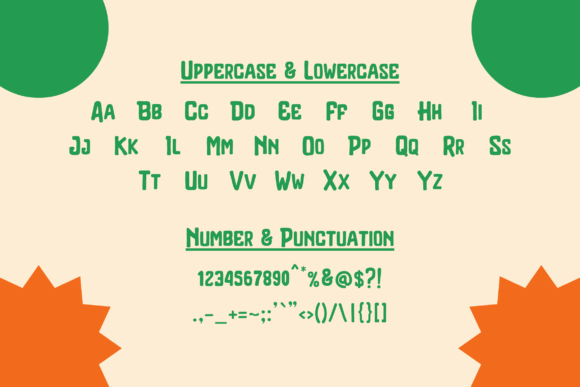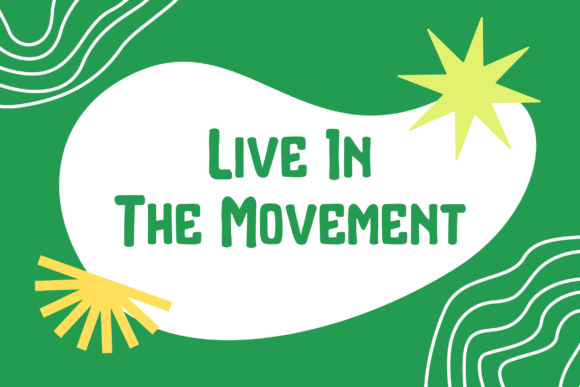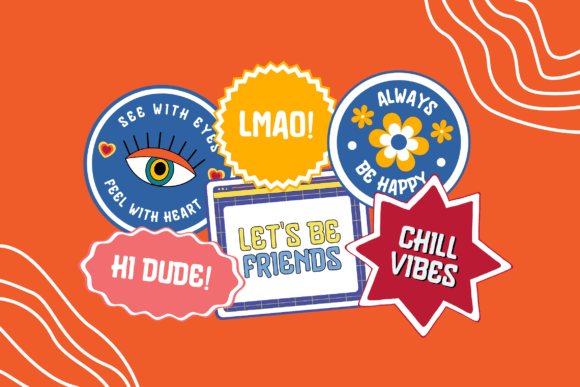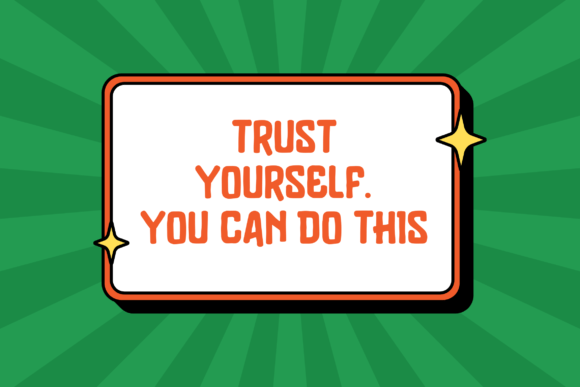
Bharaya Font: Add a Touch of Whimsy to Your Creative Projects
Bharaya is a fun and quirky display font that’s sure to add a dash of personality to your creative projects. With its unique and playful design, this font is perfect for designers and crafters looking to make a statement. In this article, we’ll dive into the world of Bharaya Font, exploring its features, uses, and benefits, as well as providing tips on how to make the most of this exciting new font.
What is Bharaya Font?
Bharaya Font is a display font designed to make a bold statement. Its fun and quirky design makes it perfect for use in a variety of creative projects, from posters and flyers to social media graphics and branding materials. The font’s unique character set and playful style ensure that it stands out from the crowd, adding a touch of whimsy and personality to any design.
Key Features of Bharaya Font
- Unique and Playful Design: Bharaya Font boasts a one-of-a-kind design that’s sure to turn heads. Its quirky style is perfect for adding a touch of personality to your creative projects.
- Display Font: Bharaya Font is a display font, making it perfect for use in headlines, titles, and other display text.
- Fun and Quirky: This font is designed to be fun and quirky, making it perfect for creative projects that require a bit of personality.
Uses for Bharaya Font
Bharaya Font is a versatile font that can be used in a variety of creative projects, including:
- Posters and Flyers: Add a touch of whimsy to your posters and flyers with Bharaya Font.
- Social Media Graphics: Use Bharaya Font to create eye-catching social media graphics that stand out from the crowd.
- Branding Materials: Add a bit of personality to your branding materials, such as business cards and brochures, with Bharaya Font.
- Crafting Projects: Bharaya Font is perfect for use in crafting projects, such as scrapbooking and card making.
Benefits of Using Bharaya Font
There are many benefits to using Bharaya Font in your creative projects, including:
- Adds Personality: Bharaya Font adds a touch of personality to your creative projects, making them stand out from the crowd.
- Versatile: Bharaya Font can be used in a variety of creative projects, from posters and flyers to social media graphics and branding materials.
Tips for Using Bharaya Font
Here are a few tips for using Bharaya Font in your creative projects:
- Use it Sparingly: Bharaya Font is a bold font, so use it sparingly to avoid overwhelming your design.
- Pair it with Other Fonts: Pair Bharaya Font with other fonts to create a unique and interesting design.
Bharaya Font is a fun and quirky display font that’s sure to add a touch of personality to your creative projects. With its unique and playful design, this font is perfect for designers and crafters looking to make a statement. Whether you’re creating posters and flyers, social media graphics, or branding materials, Bharaya Font is a great choice. So why not give it a try and see the results for yourself?